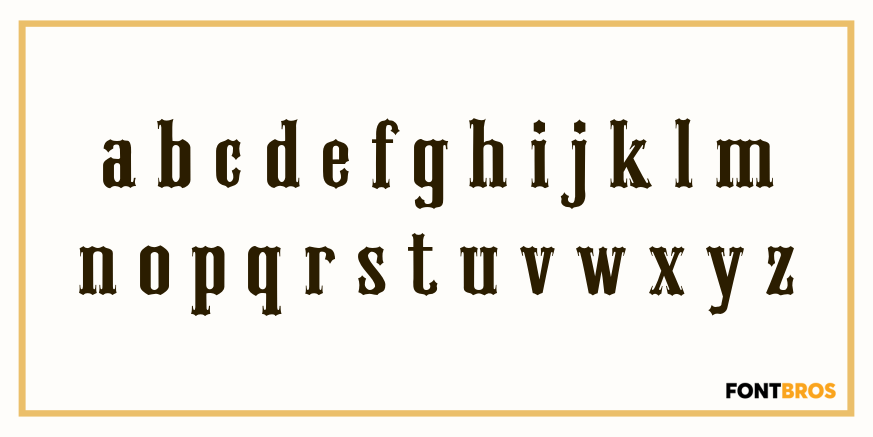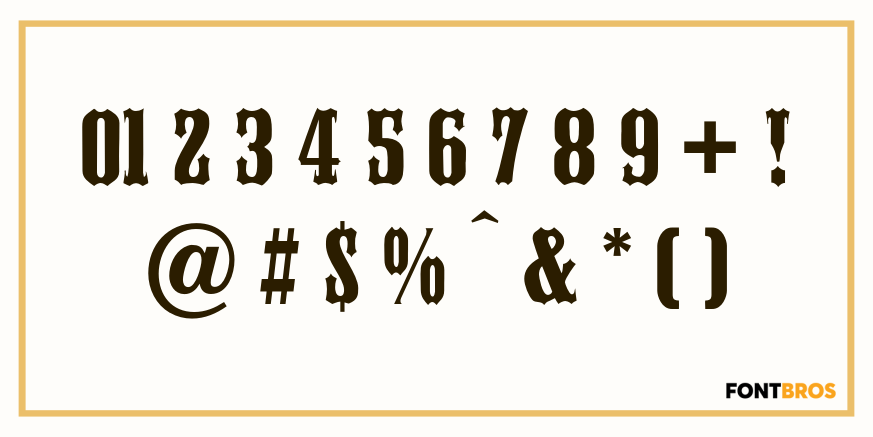
Gilbey
Font Family by Solotype
Gilbey is a display face with a distinctly historical feel and a special-effect look that gives words an instantly period-minded, decorative presence. Its styling reads as characterful and theatrical rather than neutral, making it a strong choice when you want typography to set the mood right away.
Offered as a single style from Solotype, this family is well suited to poster work, themed branding, signage, packaging, and other display uses where a vintage or historical voice can do the heavy lifting. Use it for headlines and feature text when you want a design to feel more evocative, stylized, and rooted in the past.